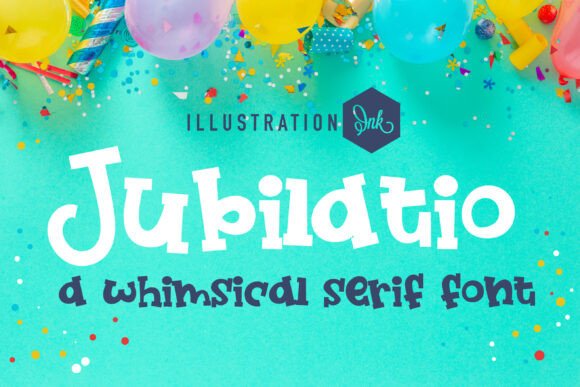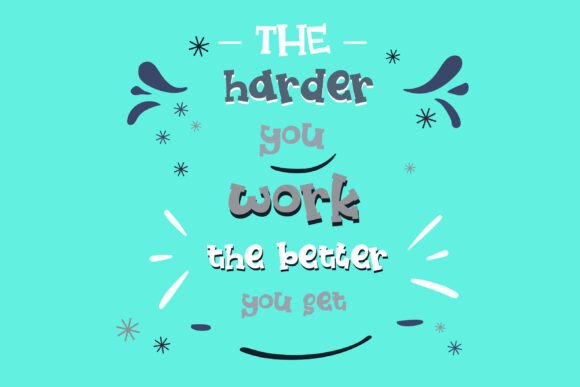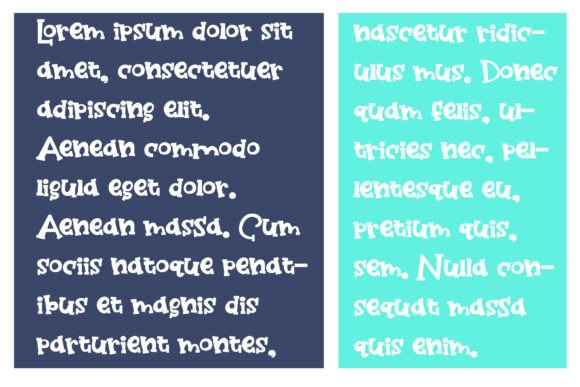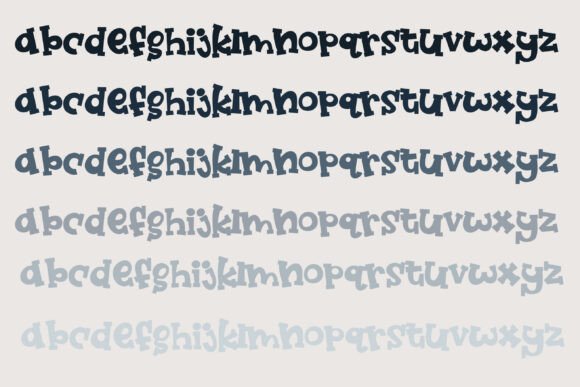
Jubilatio Font: A Cute Handwritten Serif Font for Playful Designs
About the Jubilatio Font
Make a bold statement with Jubilatio Font, a powerful and memorable font. This hand-crafted font is a whimsical font with hand-crafted slab serifs throughout.
Jubilatio’s playful character and handcrafted feel make it ideal for headlines, short text blocks on packaging, or eye-catching elements within branding materials. It excels in projects needing a touch of whimsical charm, such as children’s books, invitations, or boutique branding. However, its decorative nature makes it unsuitable for body text or UI elements where readability is paramount. Long paragraphs set in Jubilatio would be difficult to read.
Pairing Jubilatio effectively requires a contrasting typeface to balance its informal energy. A clean sans-serif like Open Sans or Lato would provide a modern counterpoint for legibility in supporting text. For a more classic feel, consider pairing it with a traditional serif such as Garamond or Playfair Display.
Jubilatio’s overall personality is undeniably cheerful and slightly quirky. It projects a sense of warmth and handcrafted authenticity, perfect for brands seeking a friendly, approachable, and memorable visual identity.